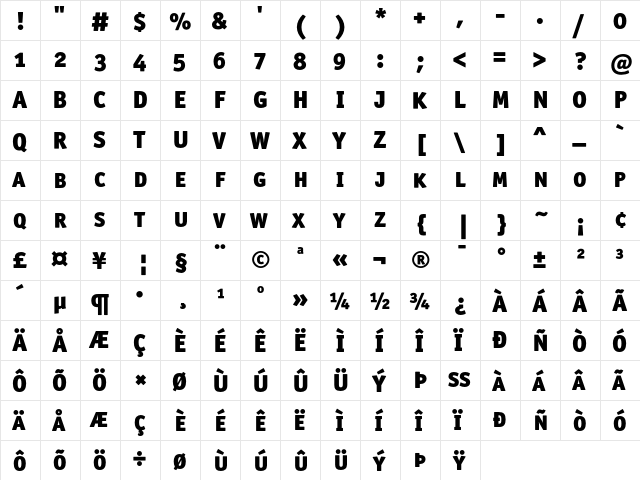
OfficinaSansITC Black SC Font Preview
OfficinaSansITC Black SC
OfficinaSansITC Black SC Font Details
Design Context for OfficinaSansITC Typeface
OfficinaSansITC takes a measured approach to typography — its balanced proportions and neutral character make it a reliable workhorse for both digital and print work.